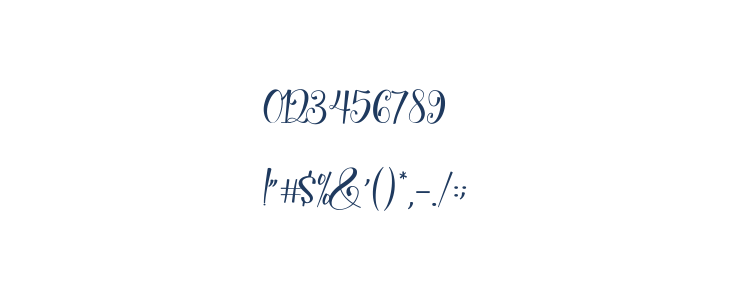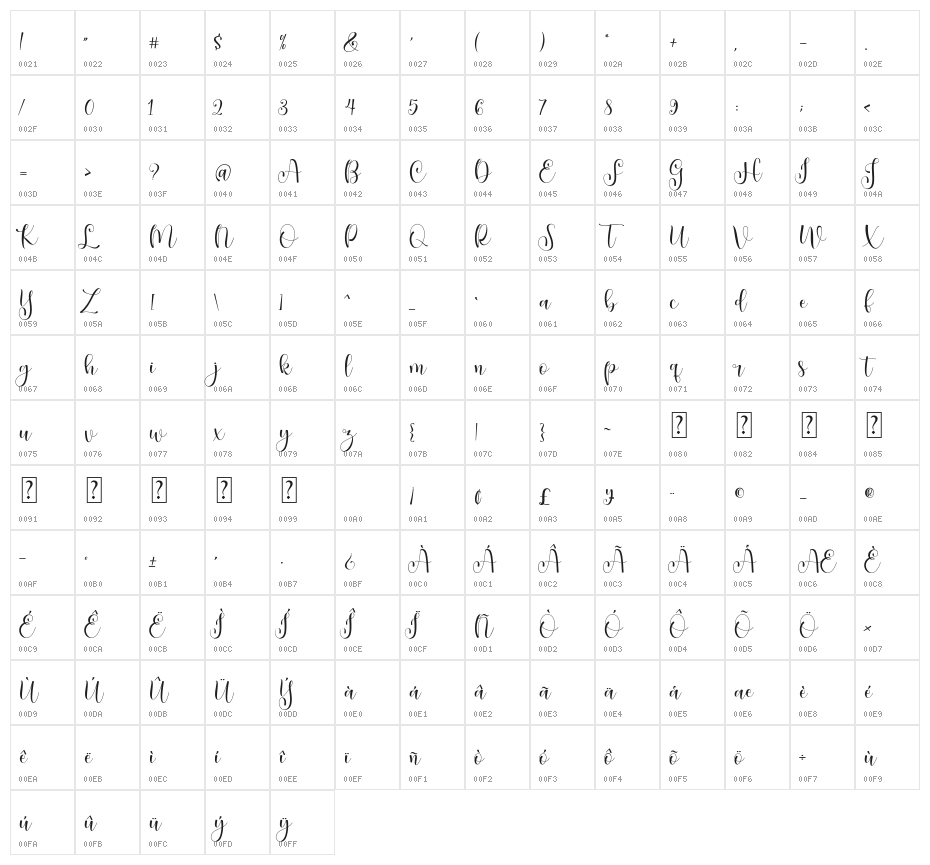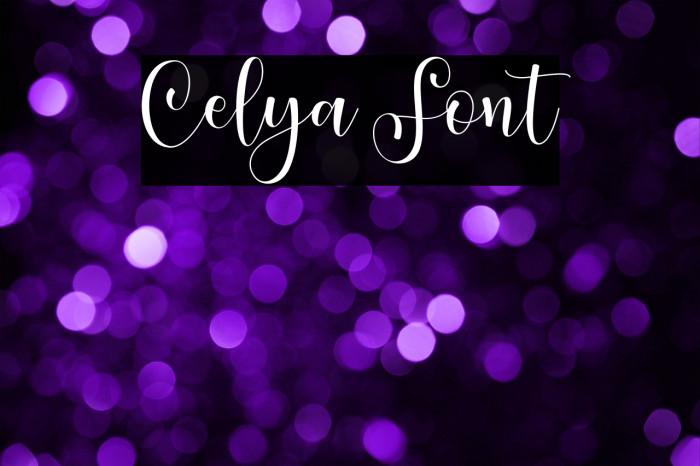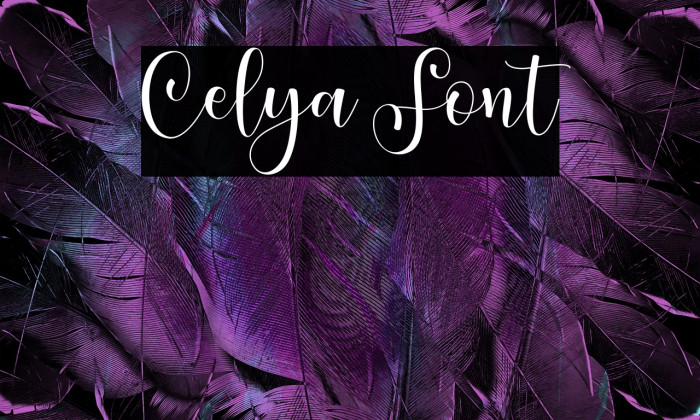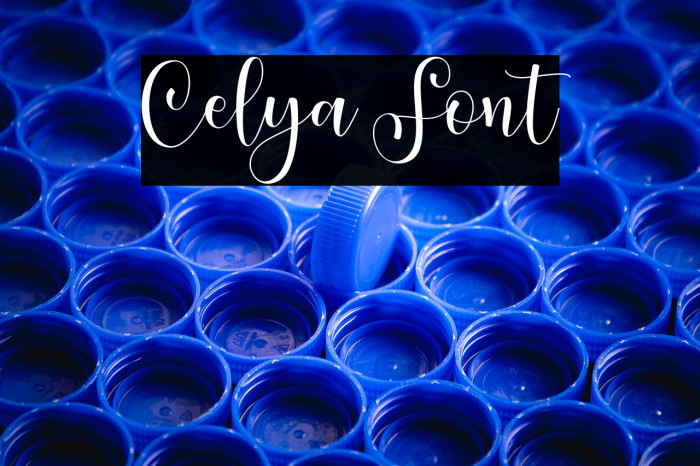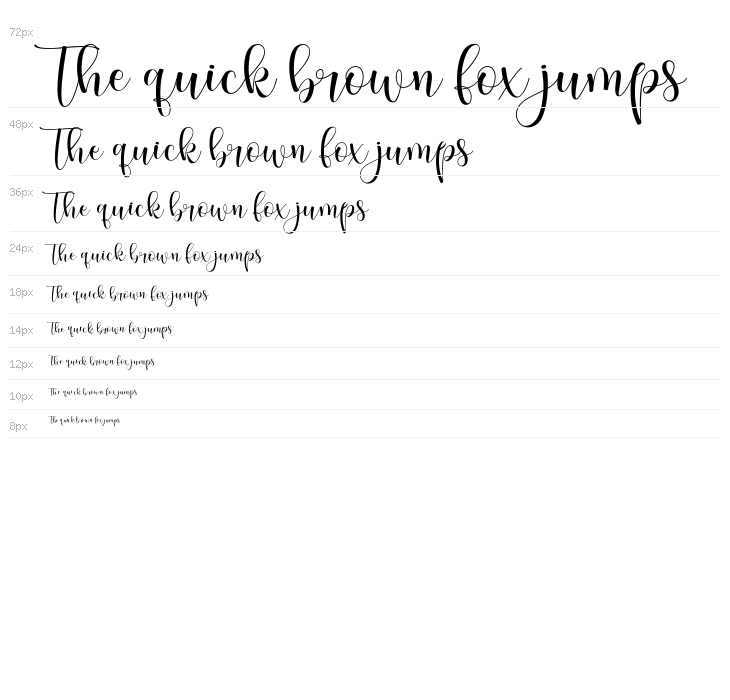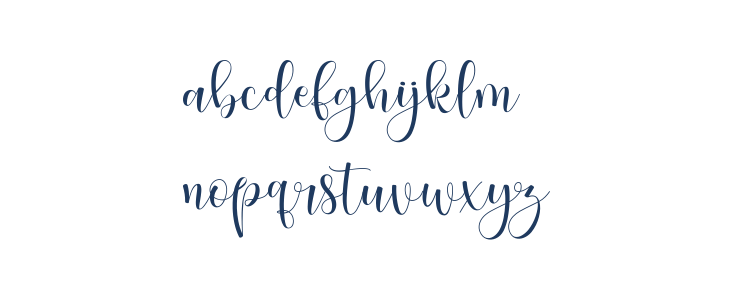
Celya Font
Celya Description
This font features an elegant and flowing script style, characterized by its intricate and decorative letterforms. The uppercase letters are particularly ornate, with sweeping curves and loops that give a sense of movement and grace. The lowercase letters maintain a consistent style, with a slightly more restrained design that complements the uppercase. The numbers and special characters are designed to match the overall aesthetic, ensuring a cohesive look across all text. This font is perfect for projects that require a touch of sophistication and elegance, such as wedding invitations, branding, and high-end product packaging.
| Use Case | Logos, Invitations, Branding |
| Proposed Projects | Ideal for wedding invitations, luxury branding, and elegant product packaging. |